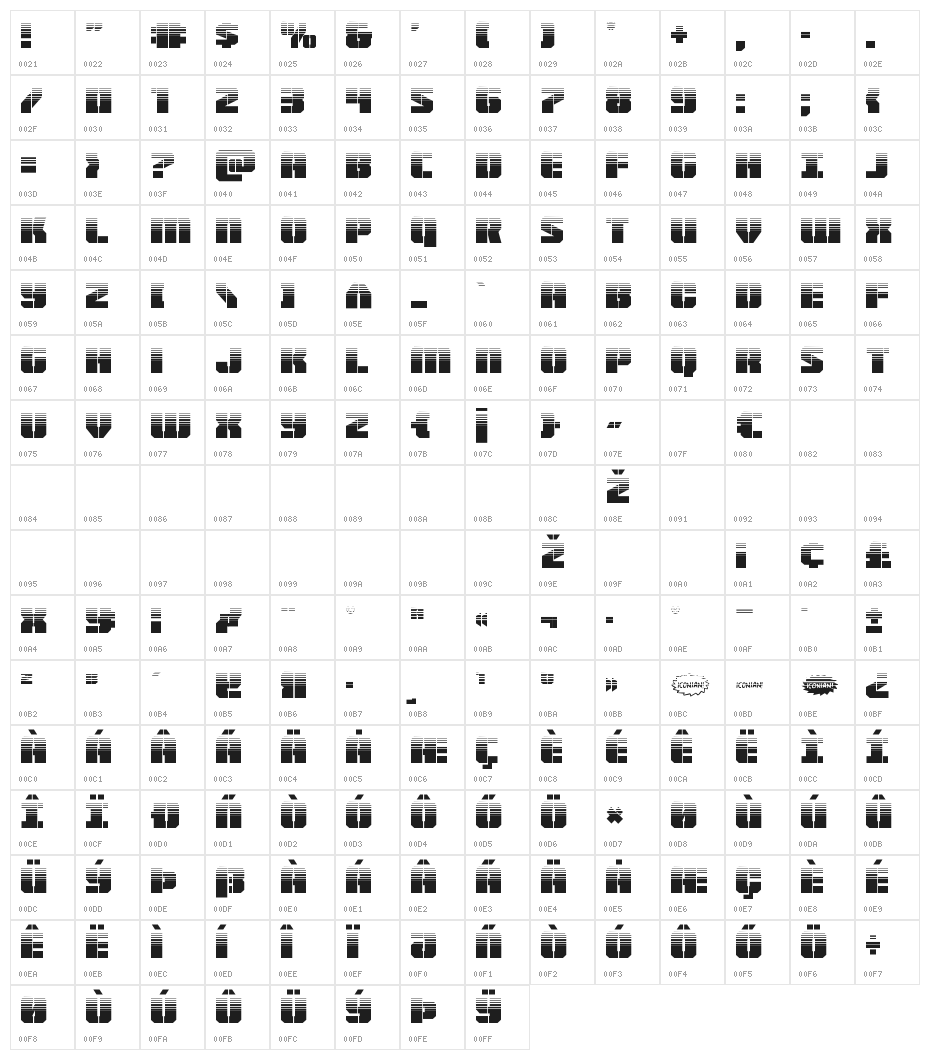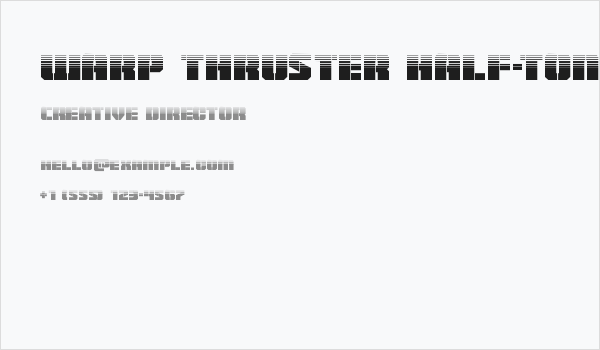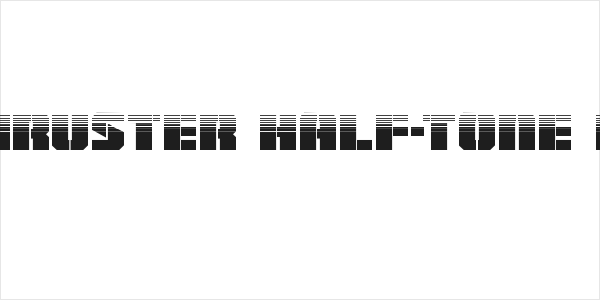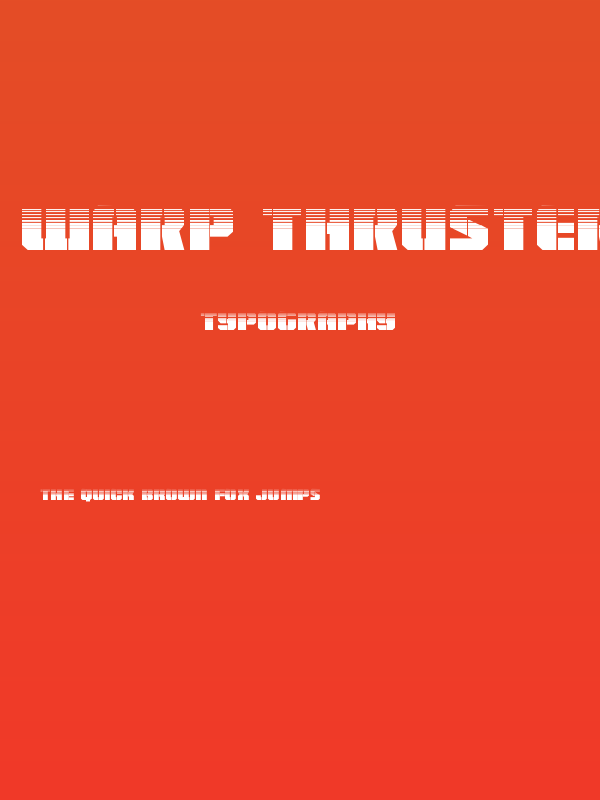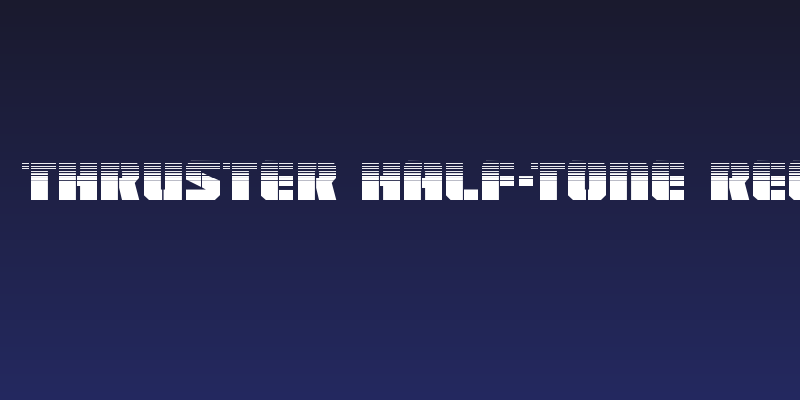
Warp Thruster Half-Tone Regular Font
Warp Thruster Half-Tone Regular Description
This font features a bold, futuristic design with a half-tone effect that creates a dynamic and eye-catching appearance. The characters are constructed with horizontal lines that give a sense of movement and speed, reminiscent of digital or technological themes. The uppercase and lowercase letters maintain a consistent style, with strong geometric shapes and a solid presence. The numbers and special characters follow the same design principles, ensuring uniformity across all glyphs. This font is ideal for projects that require a modern and innovative look, such as technology branding, sci-fi posters, or digital media.